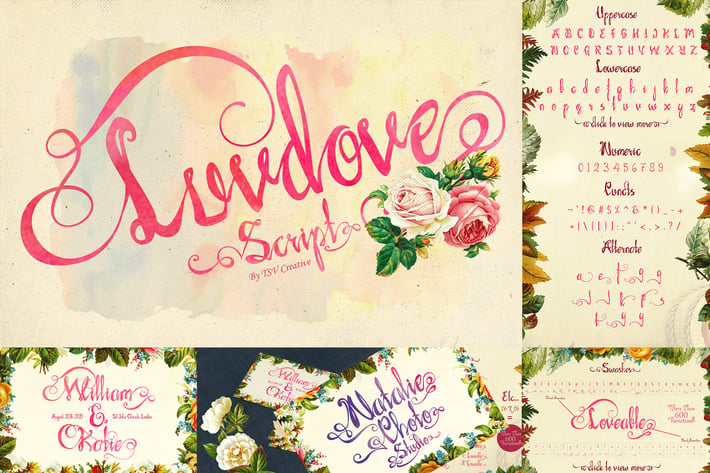
Luvdove Beautiful Script Font
Luvdove Beautiful Script
Classic modern hand drawn script typeface, made with full of love from our heart! :)
With hand drawn looking line and many alternates glyphs you will have many beatiful variations for your creation of lettering or any design project.
Feature :
Numeric
Ligatures
Alternates
Punctuations
22 front swashes and 22 back swashes
Each swash can be swap for every alphabet character, so hundred possibilities of variation is available!